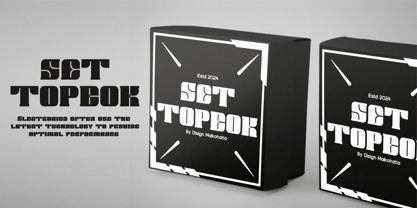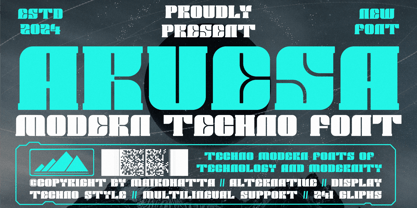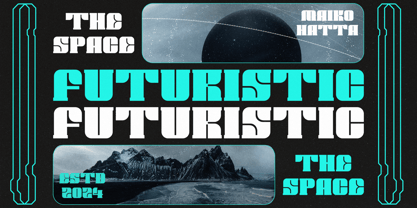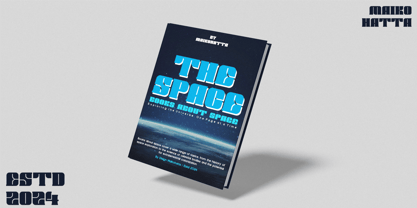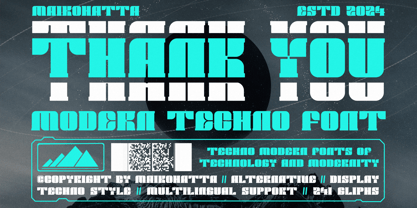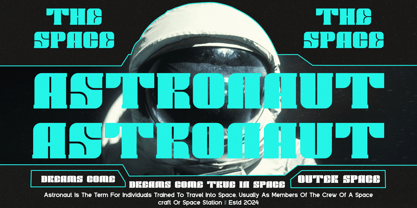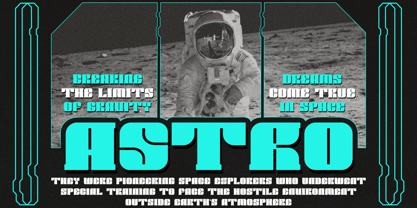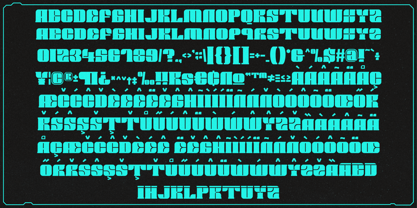
Aruesa
The Aruesa Font Family was designed by Gilang Ternadho and published by Maikohatta. Aruesa contains 1 styles. More about this family
Introducing our new product Aruesa - Modern Techno Font
Aruesa Modern Techno Font is a bold and authentic display font. The font is suitable for any branding project like logo, Template Design, esport, and many more. outstanding in a wide range of contexts.
Designers: Gilang Ternadho
Foundry: Maikohatta